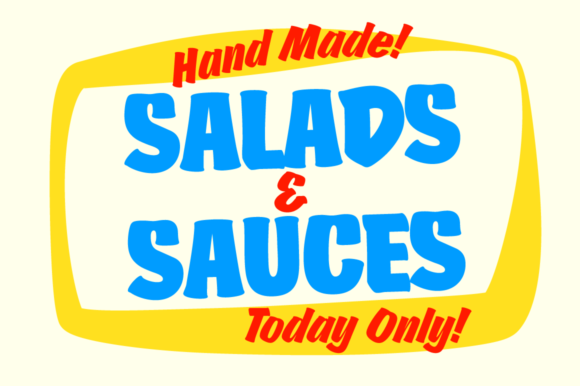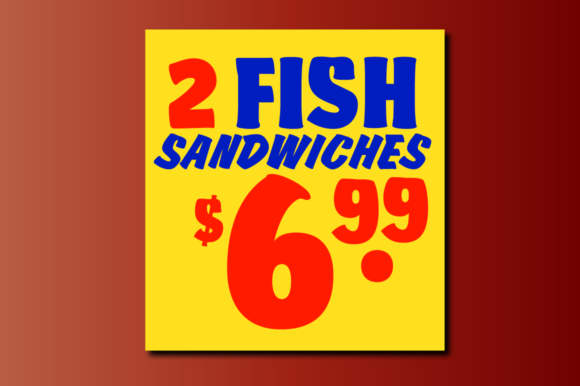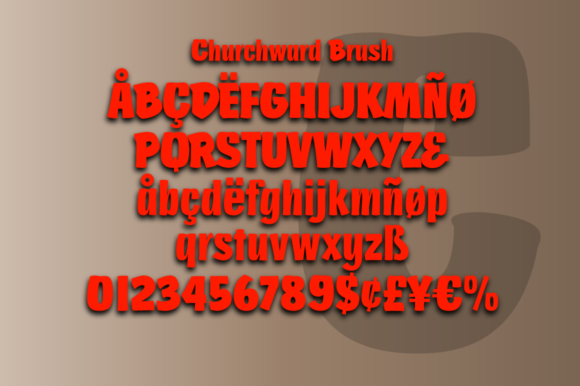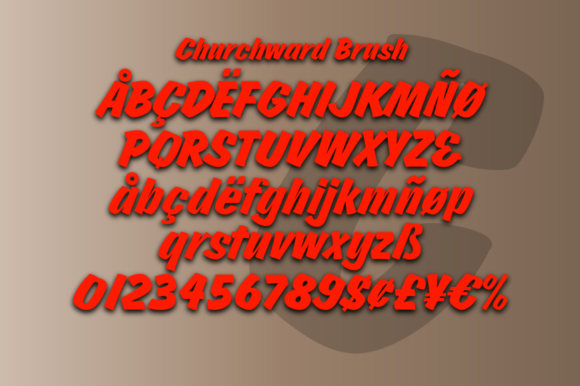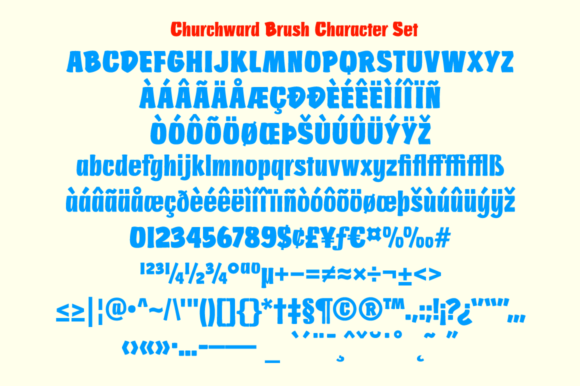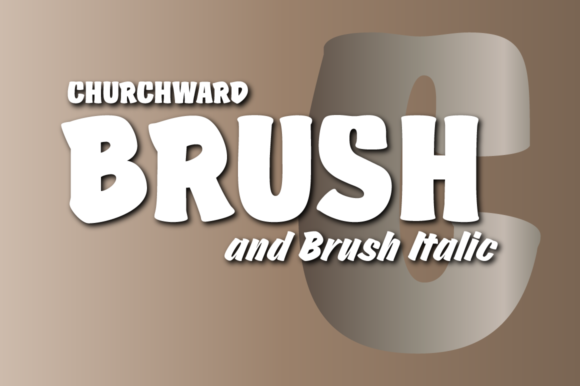
Introducing Churchward Brush Font: The Ultimate Urban Display Font
Are you tired of using the same old fonts for your design projects? Look no further than Churchward Brush Font, a cool, bold, and urban styled display font that’s perfect for adding a touch of creativity to your work. With its original look and versatility, Churchward Brush Font is ideal for a wide range of crafty ideas, from letterheads and titles to stationery and more.
What Makes Churchward Brush Font Stand Out
Churchward Brush Font is a unique and eye-catching font that’s sure to make your designs stand out from the crowd. Its bold and urban style gives it a modern and edgy feel, while its brush-like texture adds a touch of warmth and personality. Whether you’re looking to create a statement piece or simply want to add some visual interest to your design, Churchward Brush Font is the perfect choice.
Churchward Brush Font is a designer’s dream come true. Its versatility and flexibility make it perfect for a wide range of design projects, from print materials like business cards and brochures to digital applications like social media graphics and website headers. Crafters will also love Churchward Brush Font, as it’s perfect for adding a personal touch to handmade projects like journals, scrapbook pages, and more.
Key Features of Churchward Brush Font
- Bold and Urban Style: Churchward Brush Font has a bold and urban style that’s perfect for making a statement.
- Brush-Like Texture: The font’s brush-like texture adds a touch of warmth and personality to your designs.
- Versatile: Churchward Brush Font is perfect for a wide range of design projects, from print materials to digital applications.
Ideas for Using Churchward Brush Font
Churchward Brush Font is perfect for a wide range of design projects, including:
- Letterheads and Titles: Use Churchward Brush Font to create bold and eye-catching letterheads and titles.
- Stationery: Add a personal touch to your stationery with Churchward Brush Font.
- Social Media Graphics: Use Churchward Brush Font to create eye-catching social media graphics that will help you stand out from the crowd.
- Handmade Projects: Churchward Brush Font is perfect for adding a personal touch to handmade projects like journals, scrapbook pages, and more.
Churchward Brush Font is a cool, bold, and urban styled display font that’s perfect for designers and crafters looking to add a touch of creativity to their work. With its original look and versatility, Churchward Brush Font is ideal for a wide range of design projects, from letterheads and titles to stationery and more. So why wait? Download Churchward Brush Font today and start creating stunning designs that will help you stand out from the crowd.